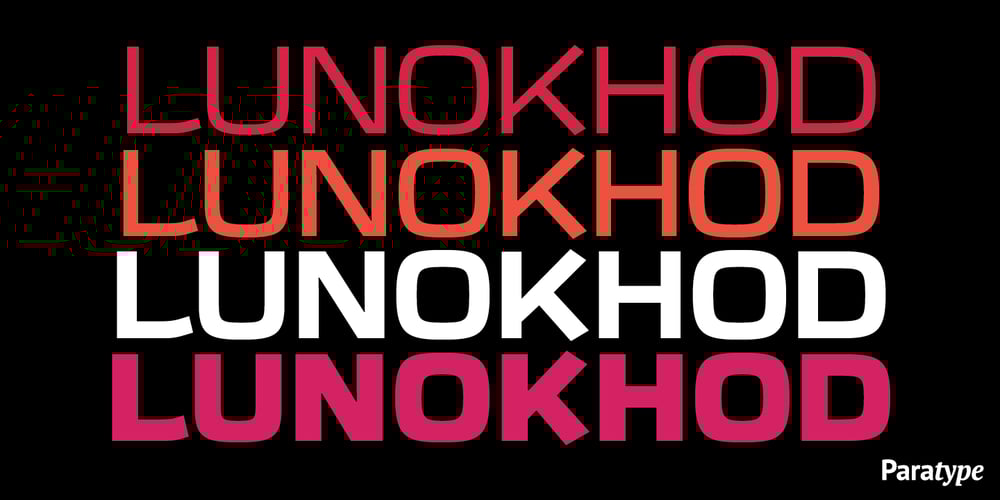
Lunokhod Font Family was designed by Oleg Karpinsky and published by ParaType. Lunokhod contains 4 styles and family package options. Lunokhod type family (four weights) was designed by Oleg Karpinsky for ParaType in 2005. Lunokhod is an original wide sans serif with square shapes of oval glyphs. Several Cyrillic glyphs such as Í, Ó, ×, ã, ä, ò have alternate letterforms. For example capital H has two shapes: Latin one with diagonal central stroke and traditional Cyrillic with horisontal bar. Capital Ó and × have symmetrical and asymmetrical shapes. For use in display typography and for short text passages.